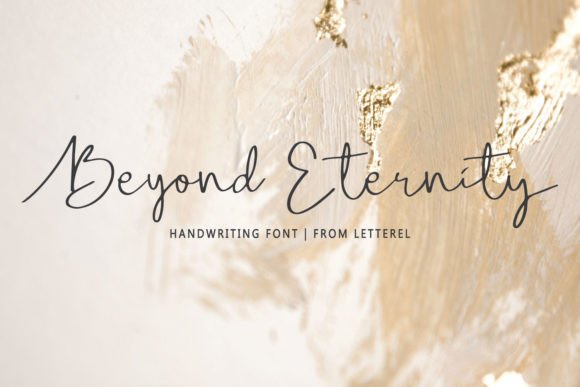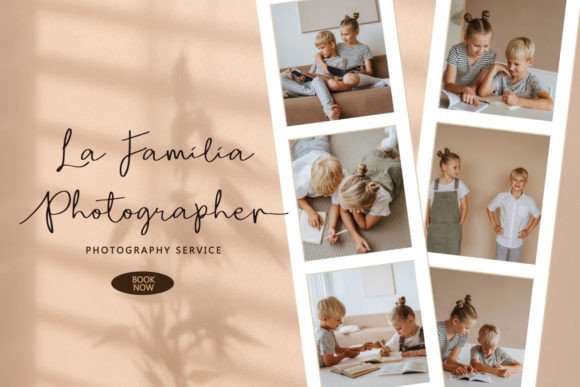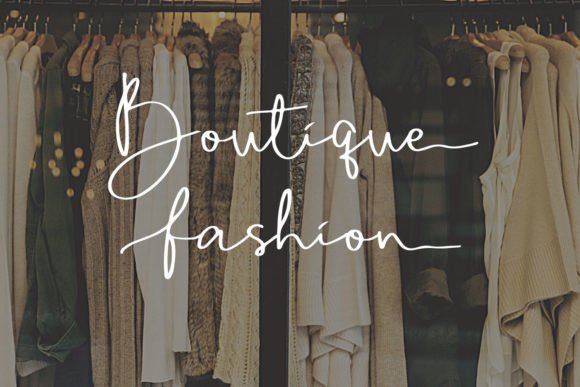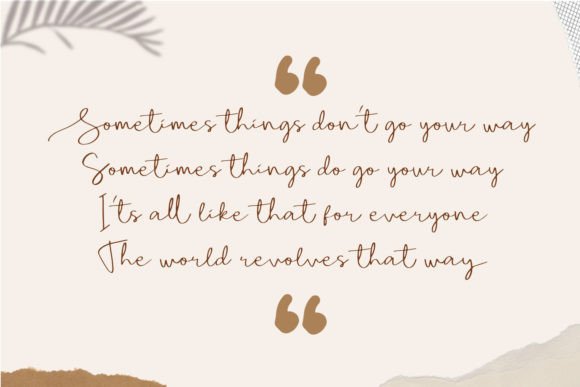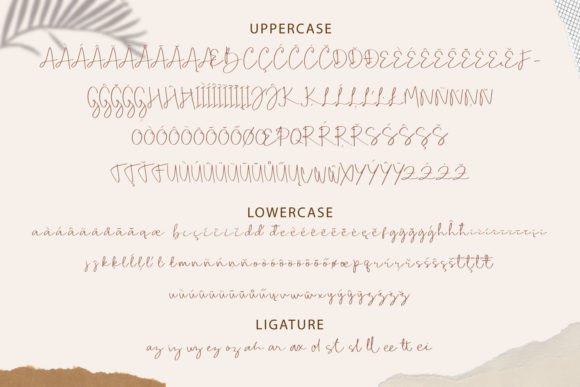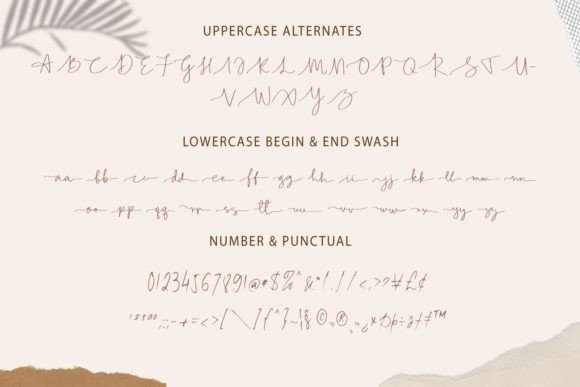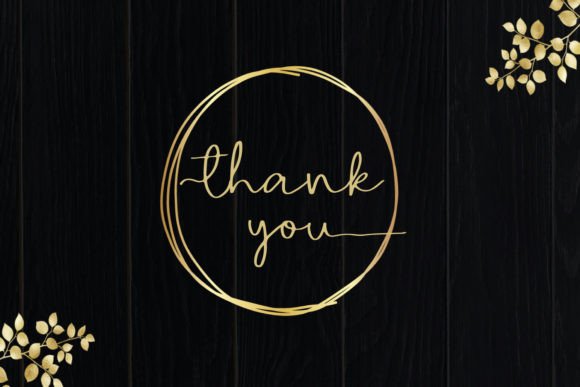
Beyond Eternity Font
About Beyond Eternity Font
Beyond Eternity is a sweet and delicate handwritten font. Dainty and joyful, this font will be ideal for writing wedding invitations, cards, or any other design that may need a romantic, personalized touch.